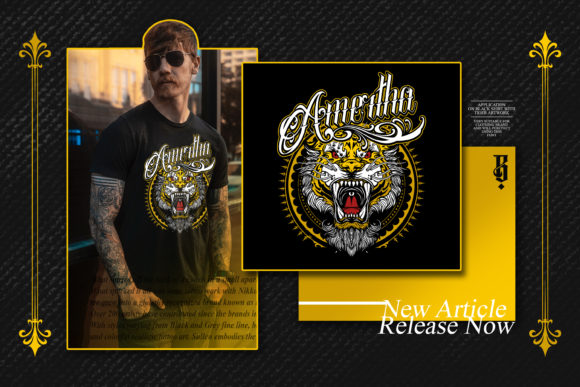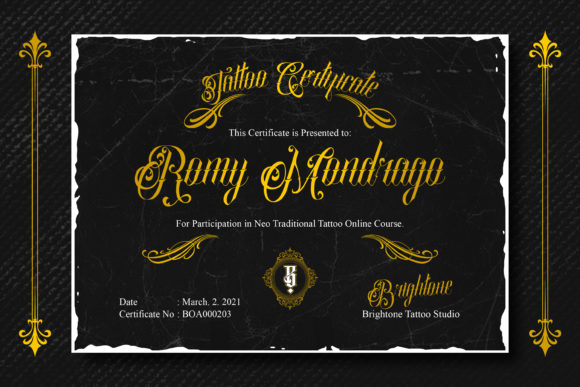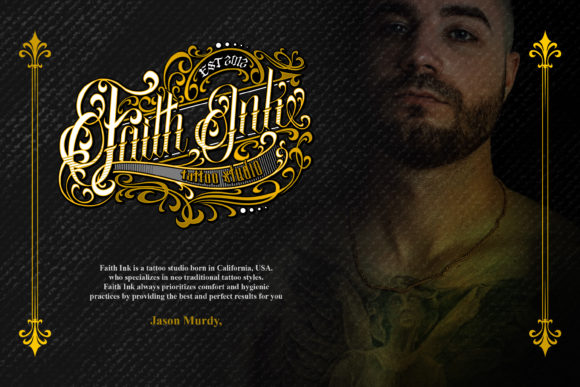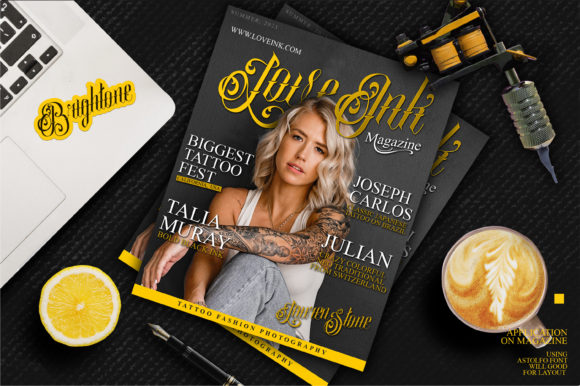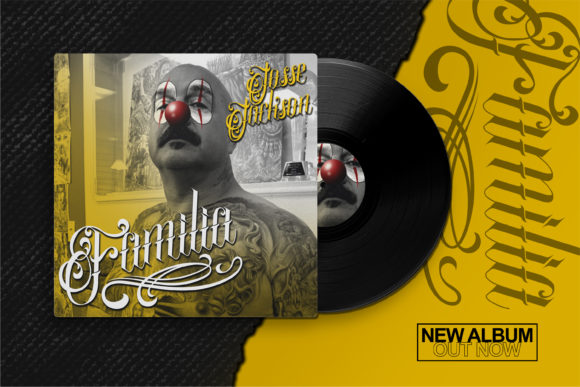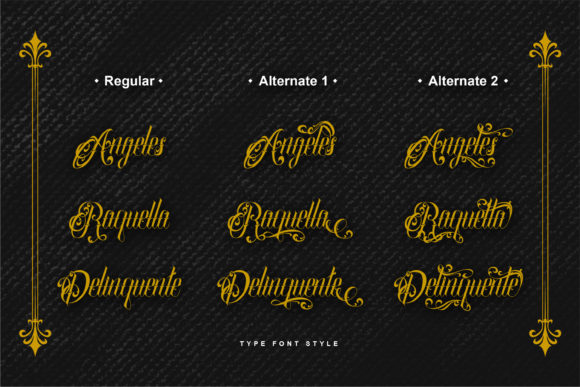
Introducing Astolfo Font: Elevate Your Designs with Elegance
In the world of typography, a font can make or break a design. For designers and crafters seeking to add a touch of sophistication and elegance to their creations, the Astolfo font is an exceptional choice. This ravishing script font is meticulously crafted with high attention to detail, making it a versatile and valuable asset for any font library.
The Characteristics of Astolfo Font
So, what sets Astolfo apart from other fonts? Here are some of its key features:
- Neatly Crafted and Highly Detailed: Astolfo boasts intricate details that give it a luxurious feel, perfect for projects where elegance is paramount.
- Versatility: Regardless of the topic or theme of your project, Astolfo can enhance it with its classic yet modern appeal.
- PUA Encoded: This font is PUA (Private Use Area) encoded, which means you can easily access all glyphs and swashes. This feature is particularly useful for designers who want to have full control over their typography, allowing for more creative freedom.
Applications of Astolfo Font
The versatility of Astolfo makes it suitable for a wide range of design projects. Here are some applications where Astolfo can shine:
- Branding and Logo Design: The elegant and sophisticated nature of Astolfo makes it perfect for creating logos and brand identities that aim to convey luxury, quality, and tradition.
- Stationery and Invitations: Whether you’re designing wedding invitations, business cards, or letterheads, Astolfo adds a touch of class and refinement.
- Packaging Design: For products that require a premium look, such as cosmetics, wine, or gourmet foods, Astolfo can enhance the packaging design with its luxurious appeal.
- Digital Media: Astolfo is not just limited to print. It’s also excellent for digital media, including website headers, social media graphics, and advertising.
Why Choose Astolfo Font?
With so many fonts available, why should designers and crafters choose Astolfo? Here are a few compelling reasons:
- Unique and Distinctive: Astolfo offers a unique style that can help your designs stand out from the crowd.
- Easy to Use: Thanks to its PUA encoding, using Astolfo is straightforward. You can easily access a wide range of glyphs and swashes, making the design process more efficient.
- High-Quality: The font’s high level of detail ensures that it looks great in both digital and print formats, even at large sizes.
Tips for Using Astolfo Font Effectively
To get the most out of Astolfo, consider the following tips:
- Pair it Wisely: Astolfo pairs well with clean, sans-serif fonts for a modern contrast or with other script fonts for a more traditional look.
- Play with Sizes: Don’t be afraid to experiment with different font sizes to create visual hierarchy and emphasis in your designs.
- Utilize Swashes: Take advantage of Astolfo’s swashes to add flair to your text. Swashes can be used to create beautiful connections between words or to add decorative touches.
For designers and crafters looking to elevate their designs with a touch of elegance and sophistication, the Astolfo font is an excellent choice. Its meticulous craftsmanship, versatility, and PUA encoding make it a valuable addition to any font library. Whether you’re working on branding, stationery, packaging, or digital media, Astolfo has the potential to enhance any creation. With its unique style and ease of use, Astolfo is set to become a favorite among designers seeking to create stunning, high-quality designs.